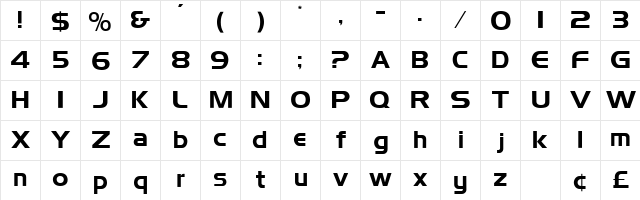
Simplix Display SSi Regular
Design Context for Simplix Display SSi Typeface
Simplix Display SSi is built around its visual character rather than neutral utility — its distinctive forms are designed to make an impression at display sizes.
Font Pairing: Pair with a clean neutral sans-serif for body copy to let Simplix Display SSi's character lead without overwhelming the composition.
Pro Tip: Use Simplix Display SSi exclusively at display sizes — it was designed to be seen, not read at length. Let a neutral companion handle body copy.